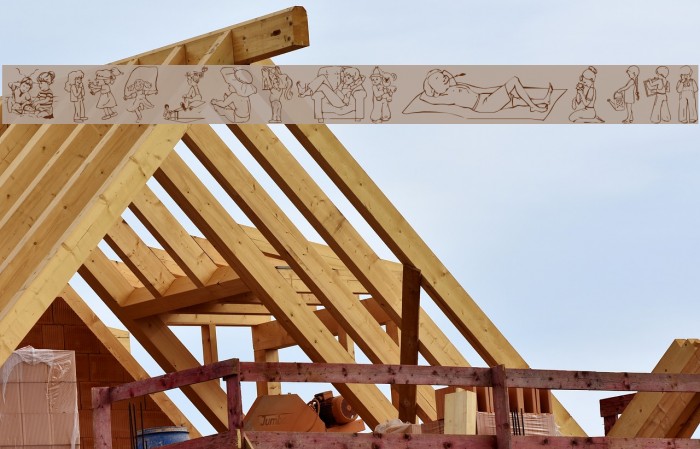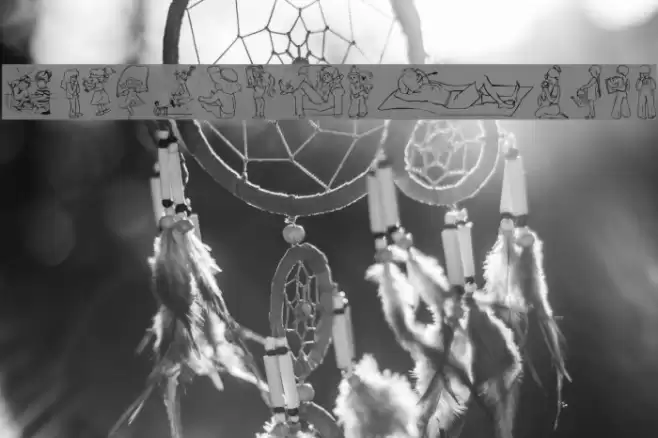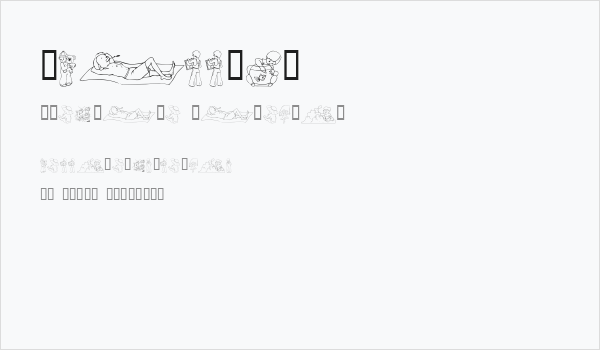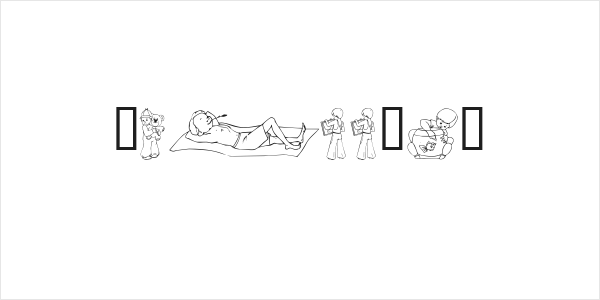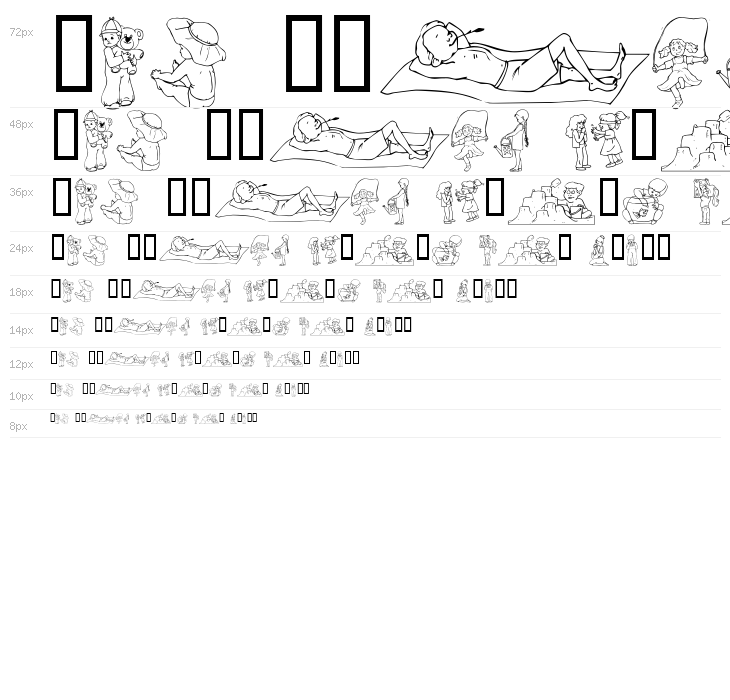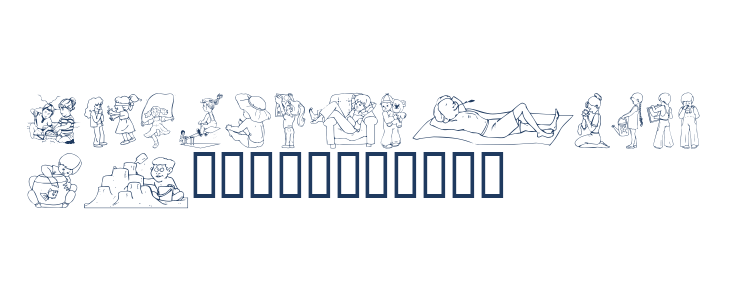
Chilluns Font
Chilluns Description
A playful decorative font featuring hand-drawn illustrations of children engaged in various activities, replacing standard alphanumeric characters with whimsical cartoon scenes.
| Overall Style | Playful, Whimsical, Childlike |
| Use Case | Decorative elements, Thematic dividers, Visual storytelling |
| Proposed Projects | Children's books, educational materials, playful posters, invitations, scrapbooking. |